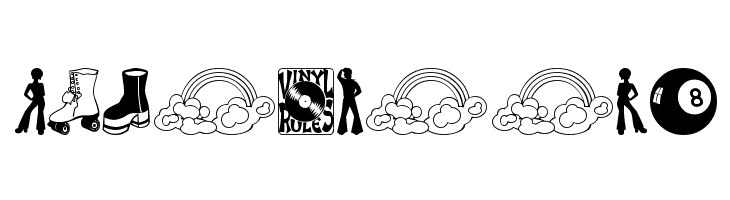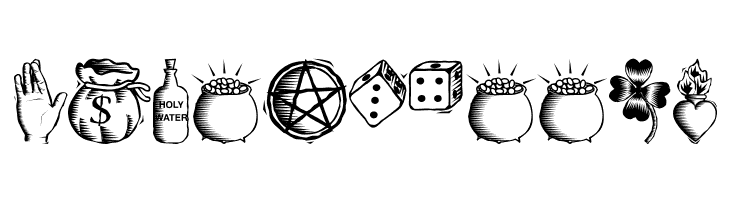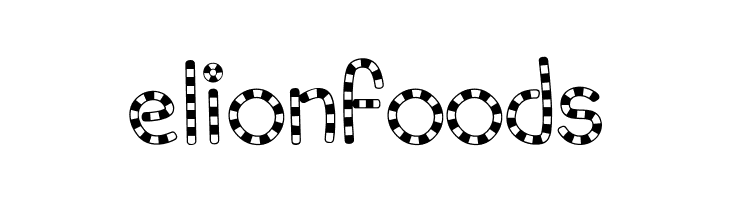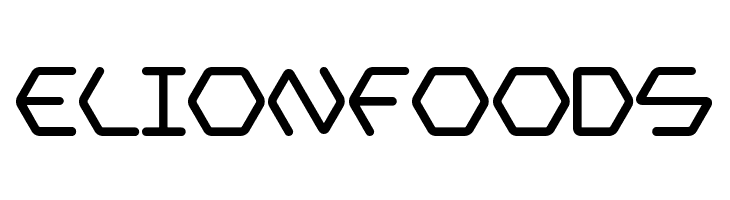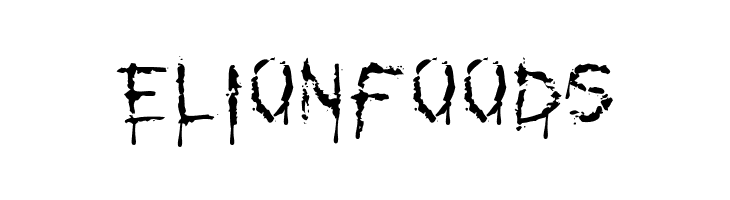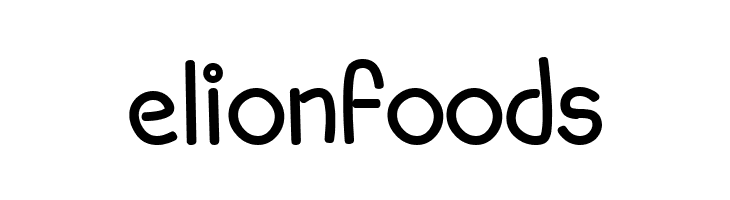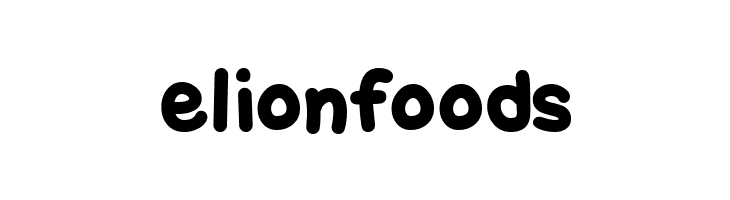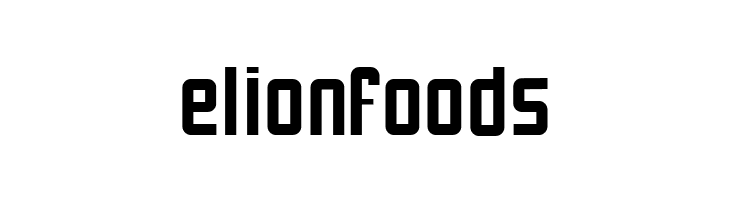
A decorative set of lucky charm illustrations with a whimsical, hand-drawn style.
A bold, geometric font with a futuristic, industrial design.
A 1970s-themed decorative dingbat font with iconic retro illustrations.
A bold, distressed font with jagged, ink-splattered strokes for a grungy, rebellious look.
A distressed, grungy font with a scratched, eroded appearance.
A bold, geometric font with a modern and technical design.
A playful, bold font with rounded edges and a bubbly appearance.
A playful, panda-themed decorative font with whimsical illustrations.
A playful, striped decorative font with a candy cane-like appearance.
A playful, rounded font with a hand-drawn, whimsical style.